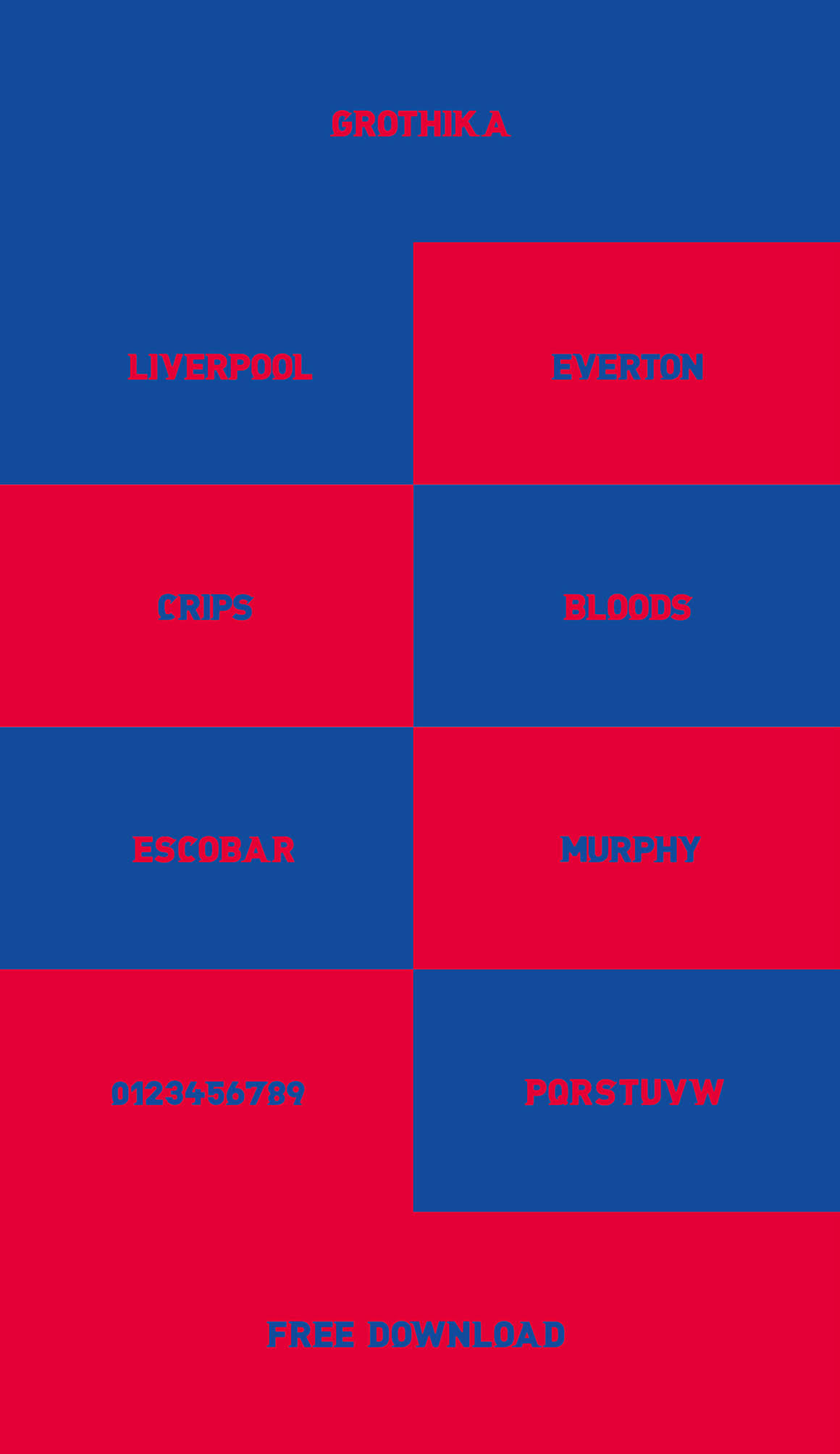
Grothika – Free Font
This free modern serif custom font is from Tshepo Mosoeu. Great for your new modern or creative style artworks. Download & enjoy ;)